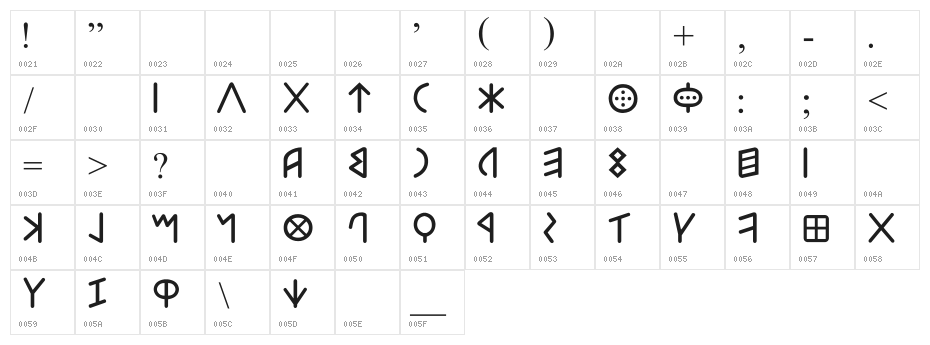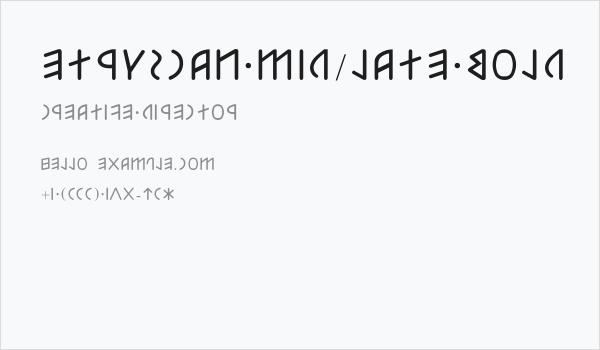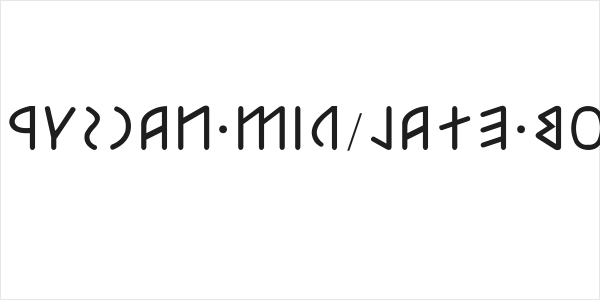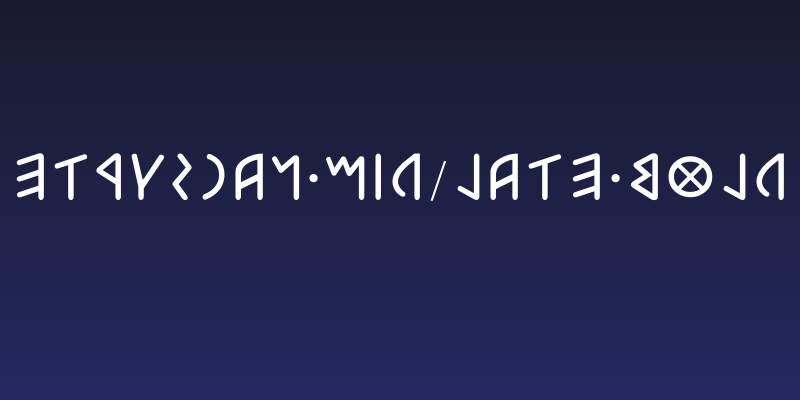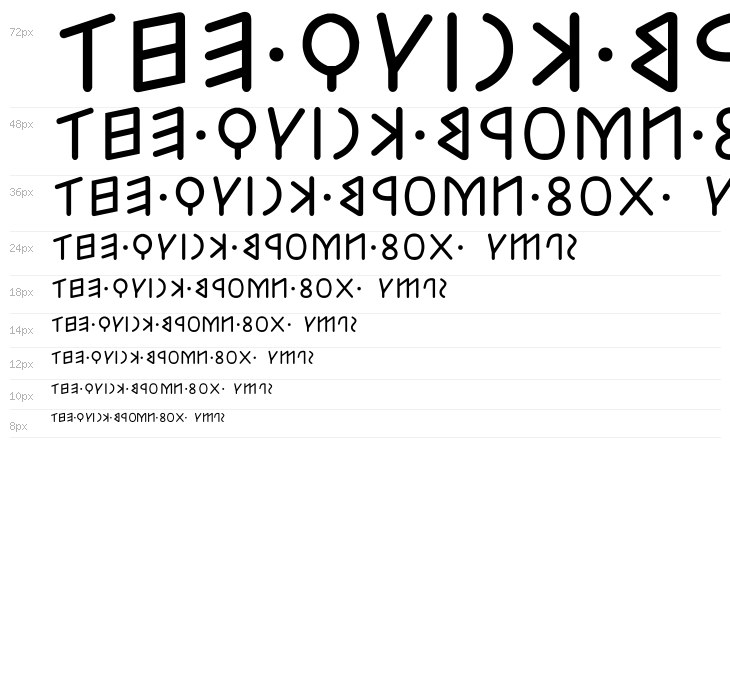
Etruscan mid/late Bold Font
Etruscan mid/late Bold Description
This font features a unique and ancient-inspired design, reminiscent of historical scripts with a modern twist. The characters are bold and geometric, with a distinct angularity that evokes a sense of mystery and antiquity. The uppercase letters are particularly striking, with sharp edges and a consistent stroke width that gives them a bold presence. The lowercase letters maintain this geometric style, offering a cohesive look across the typeface. The numerals and special characters are equally stylized, fitting seamlessly into the overall aesthetic. This font is perfect for projects that aim to capture an ancient or mystical theme, while still maintaining readability and modern appeal.
| Proposed Projects | Ideal for historical-themed designs, fantasy book covers, game interfaces, and branding that requires a touch of mystery. |